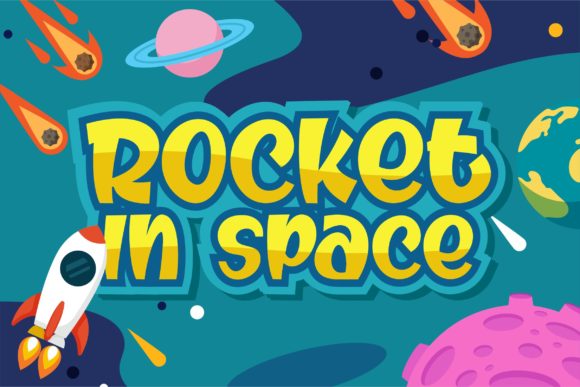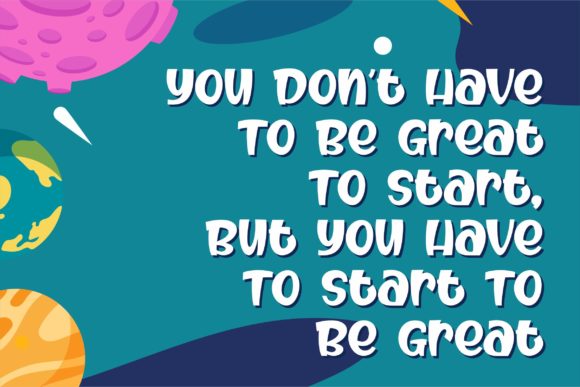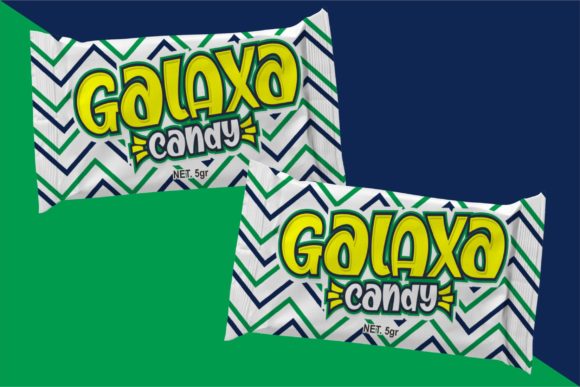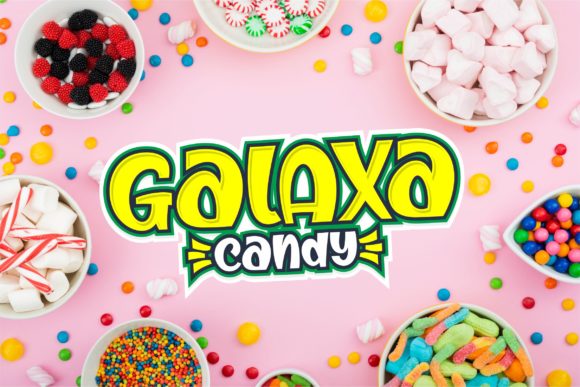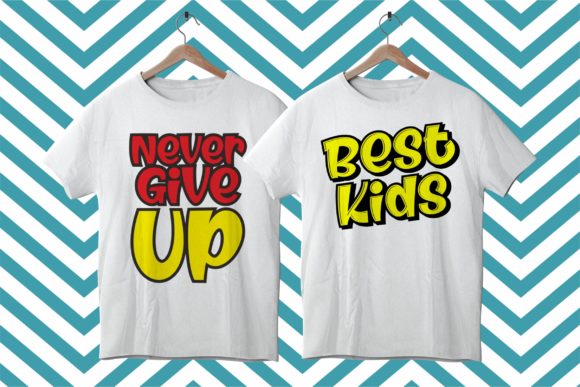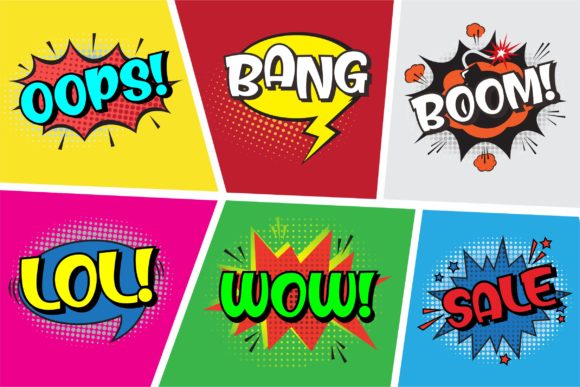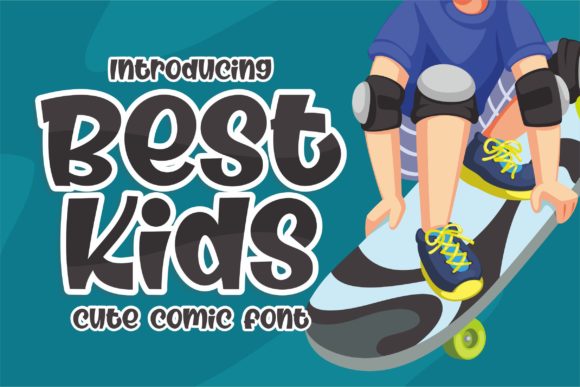
The Joy of Fonts: Discovering the Best Kids Font
I’ll never forget the time I was working on a project for a children’s birthday party invitation. I had the design concept nailed, but something was missing – the perfect font. I scrolled through my font library, but nothing seemed quite right. That’s when I stumbled upon the Best Kids font. It was like a breath of fresh air! The playful, quirky vibe instantly elevated my design, and I knew I had found the perfect fit.
An Honest Review of Best Kids Font
- ✨ The playful, hand-drawn feel that adds a touch of whimsy to any design
- ✅ The font’s versatility – it works beautifully for titles, headings, and even short paragraphs
- 💕 The range of OpenType features, including glyphs and stylistic alternates, which allow for endless creative possibilities
- 🎉 The font’s ability to evoke a sense of joy and friendliness, perfect for designs aimed at kids or a younger audience
While Best Kids font is an amazing addition to any design, there are a few things to keep in mind:
- ⚠️ The font may not be the best choice for body text or longer paragraphs, as its playful nature can be overwhelming for extended reading.
- 🤔 Some of the OpenType features may require a bit of experimentation to get the hang of, but trust me, it’s worth it!
The Story Behind Best Kids Font
The Best Kids font was designed with one goal in mind: to bring joy and playfulness to designs. The font’s creator, a talented type designer, was inspired by the whimsical world of children’s books and the magic of imagination. With Best Kids font, you can bring that same sense of wonder to your designs.
Q: Is Best Kids font suitable for body text?
A: While Best Kids font is amazing for titles and headings, it’s not the best choice for body text or longer paragraphs. Its playful nature can be overwhelming for extended reading.